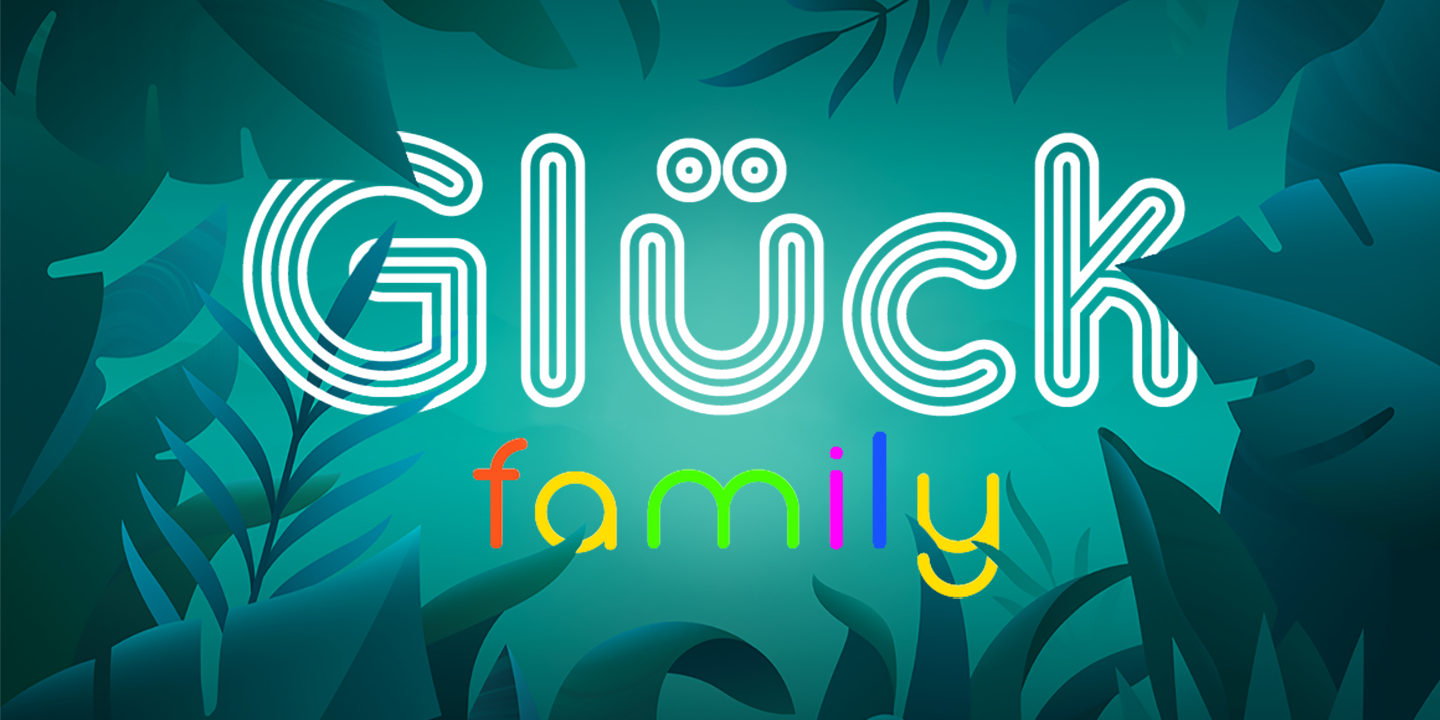
The Gluck Font is perfect for various design applications including good luck charm branding, fortune-themed marketing, lottery and gaming graphics, lucky number promotions, positivity campaign designs, celebration event materials, wishful thinking publications, and serendipity-inspired projects. This fortunate typeface works exceptionally well for brands promoting luck and projects requiring optimistic energy with fortunate appeal.
What makes Gluck Font exciting is its lucky and optimistic character that instantly brings good fortune vibes and creates positive expectations with cheerful confidence. The font features fortunate letterforms with lucky aesthetics and serendipitous qualities that evoke feelings of hope, optimism, and magical possibilities. Its lucky styling and fortune-inspired appearance make it perfect for brands that want to spread positive energy and connect with audiences seeking good fortune and lucky opportunities in their lives.
The Gluck Font family includes multiple weights and styles, offering designers flexibility for diverse fortune applications. The family typically consists of regular, bold, light, and playful variations, along with luck-inspired decorative elements and fortune ornaments, providing comprehensive coverage for projects that need both optimism and visual charm across different lucky contexts.
Whether you're working on gaming services, celebration planning, or positive lifestyle campaigns, Gluck Font Free Download delivers the fortunate quality and visual positivity that modern luck-focused designers desire. The font's fortune-inspired design combined with its excellent readability makes it an essential tool for creating compelling visual communications that celebrate good luck and bring the magical spirit of positive fortune to life.